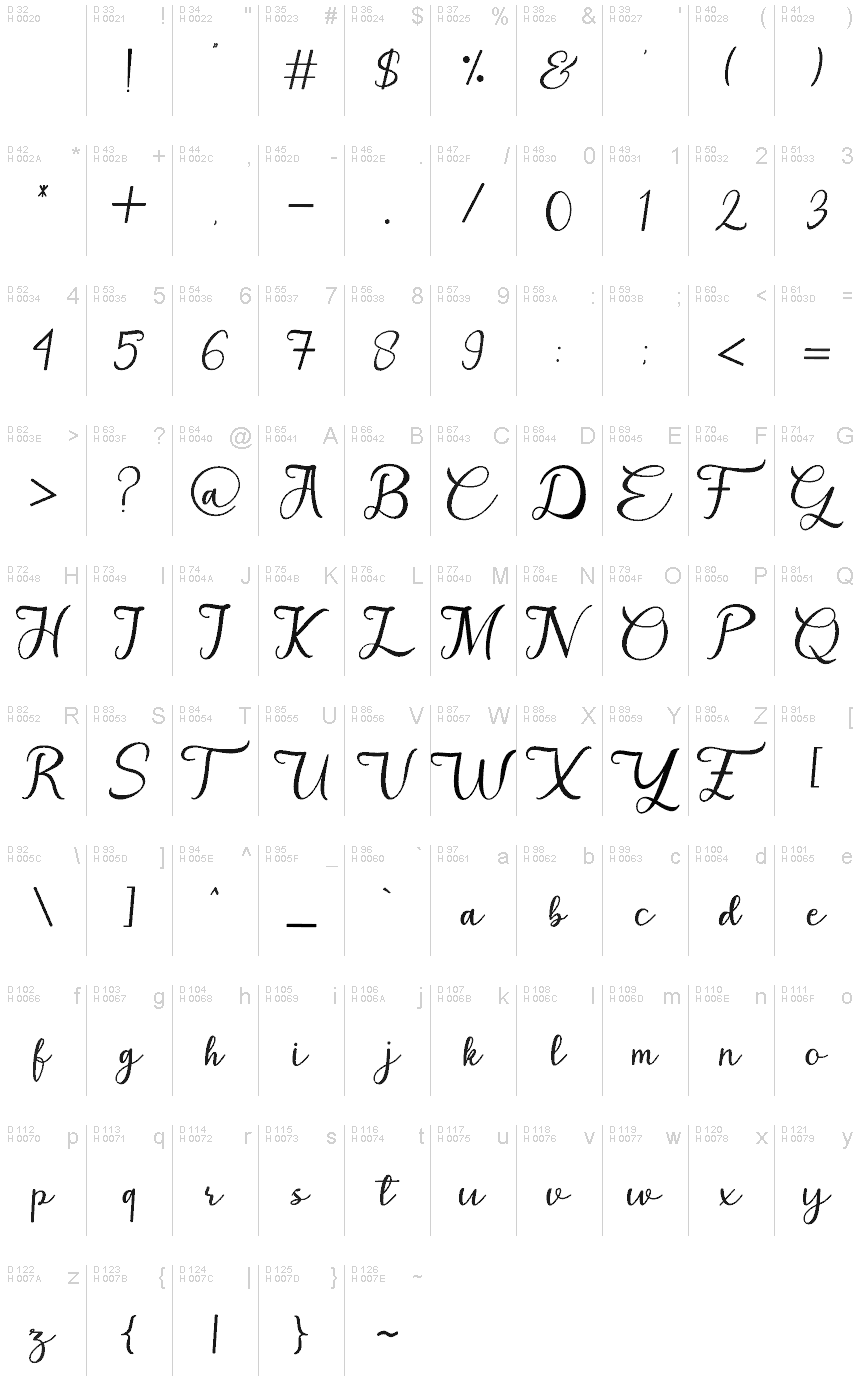
Milk&Honey
introduce my new font, Milk & Honey. Milk & Honey is a beautiful and elegant script font that is perfect for your needs such as packaging, photography, magazines, quotes, and beautiful writing, etc.